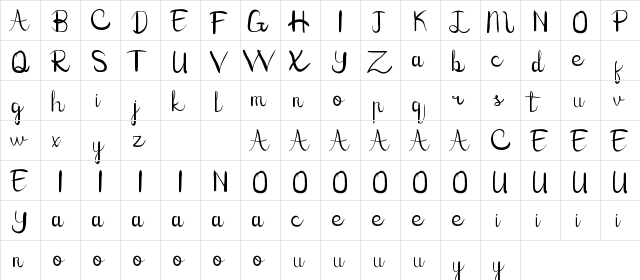
Kate Raymond Demo Script Regular
| Foundry | Edric Studio |
| Designer | Muhammad Lukman Fauzi & Suci Anita |
Design Context for Kate Raymond Demo Script Typeface
Kate Raymond Demo Script brings a calligraphic fluidity to the page — its connecting strokes and expressive curves give it an unmistakably human quality.
Font Pairing: Combine Kate Raymond Demo Script with a simple geometric sans for maximum contrast — the tension between flowing curves and clean structure is a classic typographic pairing.
Pro Tip: Pair Kate Raymond Demo Script with a clean sans-serif for supporting text. The contrast between fluid script and geometric structure creates an elegant typographic hierarchy.